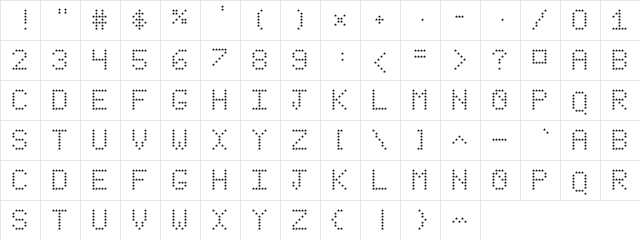
Stars Revenge Regular
Design Context for Stars Revenge Typeface
Stars Revenge is a composed and adaptable typeface that performs quietly and consistently across a wide range of design contexts.